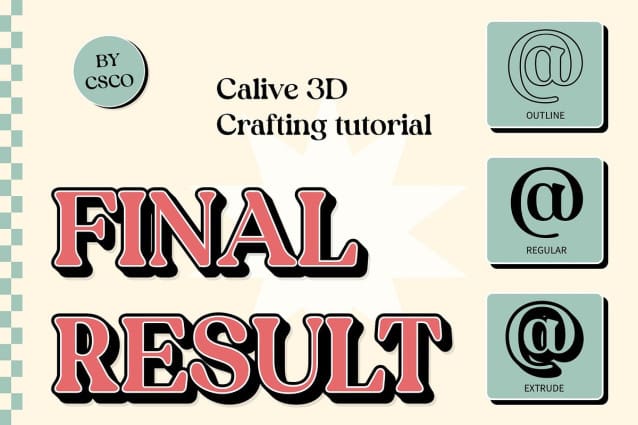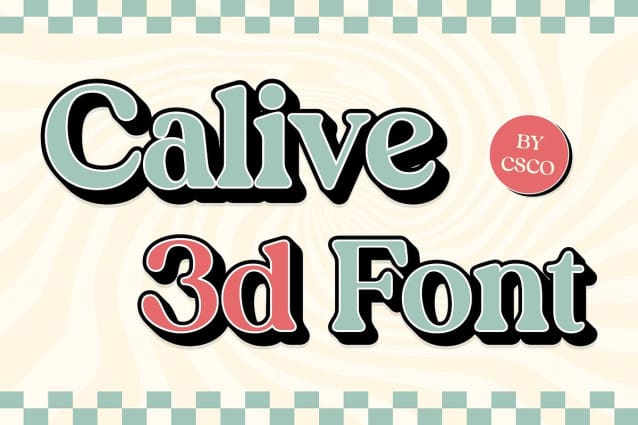
Calive 3D Font
Calive 3D Font is a retro-inspired serif font that captures the playful and bold essence of the 1990s. With its exaggerated serifs and distinct letterforms, this font evokes the distinctive style of the era, blending nostalgia with a modern design approach. Its bold, graphic shapes offer a striking appearance that’s both fun and memorable, making it ideal for designs that seek to evoke the spirit of the 90s with a contemporary edge.
Contemporary 3D Depth The addition of a 3D effect elevates Calive, providing a sense of dimension and visual depth that enhances its impact. This modern twist on a retro design ensures the font stands out in a dynamic and stylish way, offering a more engaging visual experience. The 3D effect enhances the bold letterforms, creating a design that feels both grounded in nostalgia and forward-looking in its execution.
Perfect for Fun, Creative Projects Calive 3D is perfect for projects that aim to capture a sense of fun, energy, and nostalgia. Whether used in branding, posters, or creative campaigns, this font brings a unique blend of retro flair and modern appeal. Its playful yet bold nature makes it an excellent choice for designs that want to stand out and make an impression.